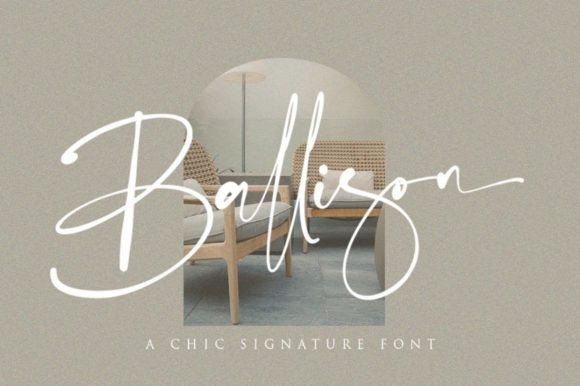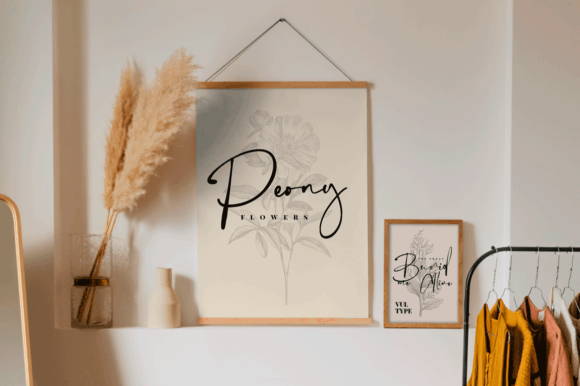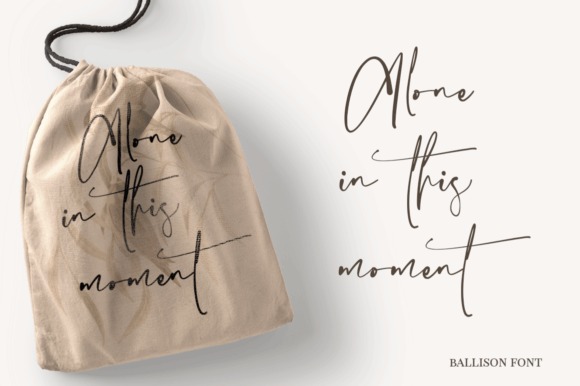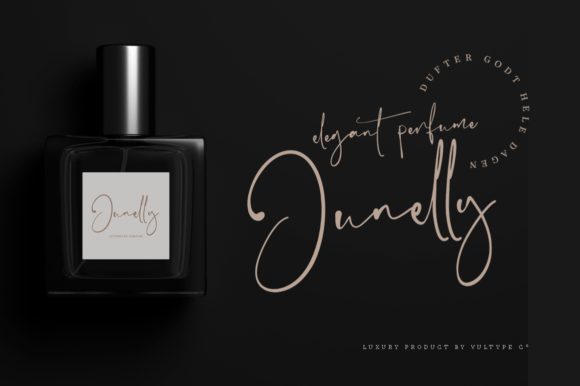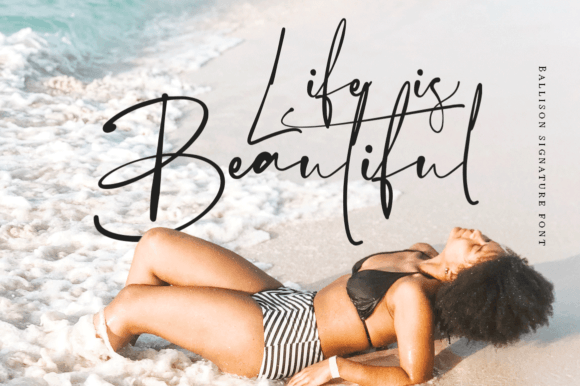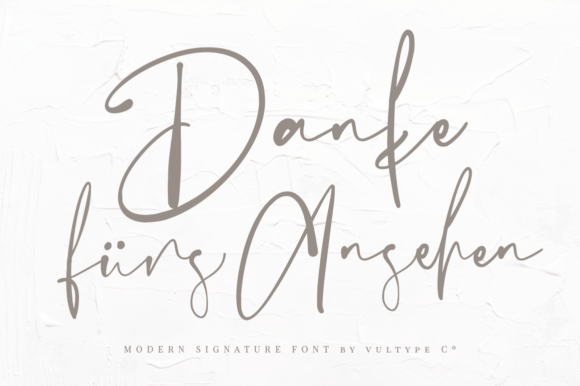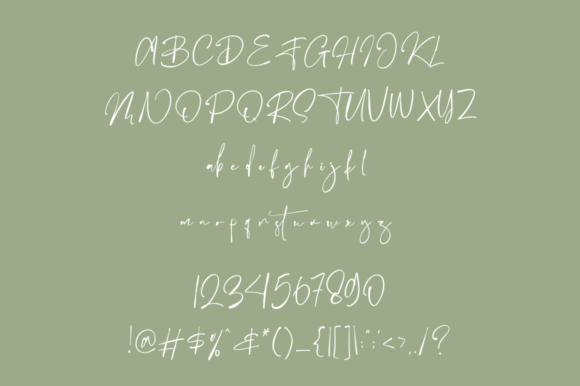
Ballison Font
“Ballison: Where Chic Elegance Meets Organic Grace in Handwritten Typography
Introducing Ballison, a chic handwritten font that embodies the perfect blend of elegance and organic charm. Crafted with meticulous attention to detail, Ballison is the ideal choice for projects that require a natural and authentic style. Whether you’re designing logos, logotypes, branding materials, weddings, fashion items, book covers, Instagram posts, or any creative endeavor that demands a touch of sophistication, Ballison effortlessly adds an elegant and classy look to your work, transforming your designs into timeless masterpieces.
The allure of Ballison lies in its chic handwritten style, where each letter exudes a sense of organic grace and natural beauty. Its flowing strokes and delicate curves create a visual harmony that captures the essence of elegance with a touch of authenticity. Imagine your logos adorned with Ballison’s chic elegance, exuding sophistication and style. Picture your wedding invitations featuring its graceful letterforms, setting the tone for a celebration that whispers class and refinement. With Ballison, your designs radiate with an air of understated elegance, making them visually captivating and emotionally resonant.
One of Ballison’s standout features is its versatility. Its chic and organic style makes it suitable for a wide range of applications, from branding and fashion to social media posts and book covers. Whether you’re designing luxurious logos or crafting visually appealing Instagram posts, Ballison elevates your designs with its effortless elegance, making them stand out with a unique blend of chic sophistication and natural grace.
Moreover, Ballison is more than just a font; it’s an embodiment of timeless beauty and artistic craftsmanship. Its chic elegance and organic charm resonate with individuals who appreciate the subtlety of handwritten sophistication, making it a favorite among designers and enthusiasts seeking a font that exudes grace and style. Ballison becomes a symbol of your refined taste, allowing you to add a touch of timeless elegance to your creative endeavors.
In a world where chic elegance meets organic grace, Ballison helps you make a statement. It speaks the language of sophistication and natural beauty, resonating with those who appreciate the beauty of handwritten artistry with a touch of class. Whether you’re designing for branding, weddings, or any creative endeavor, Ballison becomes your trusted companion, guiding you toward design excellence.
So, why settle for ordinary when you can embrace the extraordinary with Ballison? Let this chic handwritten font be the canvas for your creative expressions, and watch as your projects come to life with elegance, grace, and timeless beauty. Let your creativity flow, and let Ballison be the brushstroke that paints your ideas into visually captivating masterpieces, leaving a lasting impression on the hearts of your audience. Elevate your designs with Ballison, where chic elegance meets organic grace, and transform your creations into works of art that stand the test of time.”